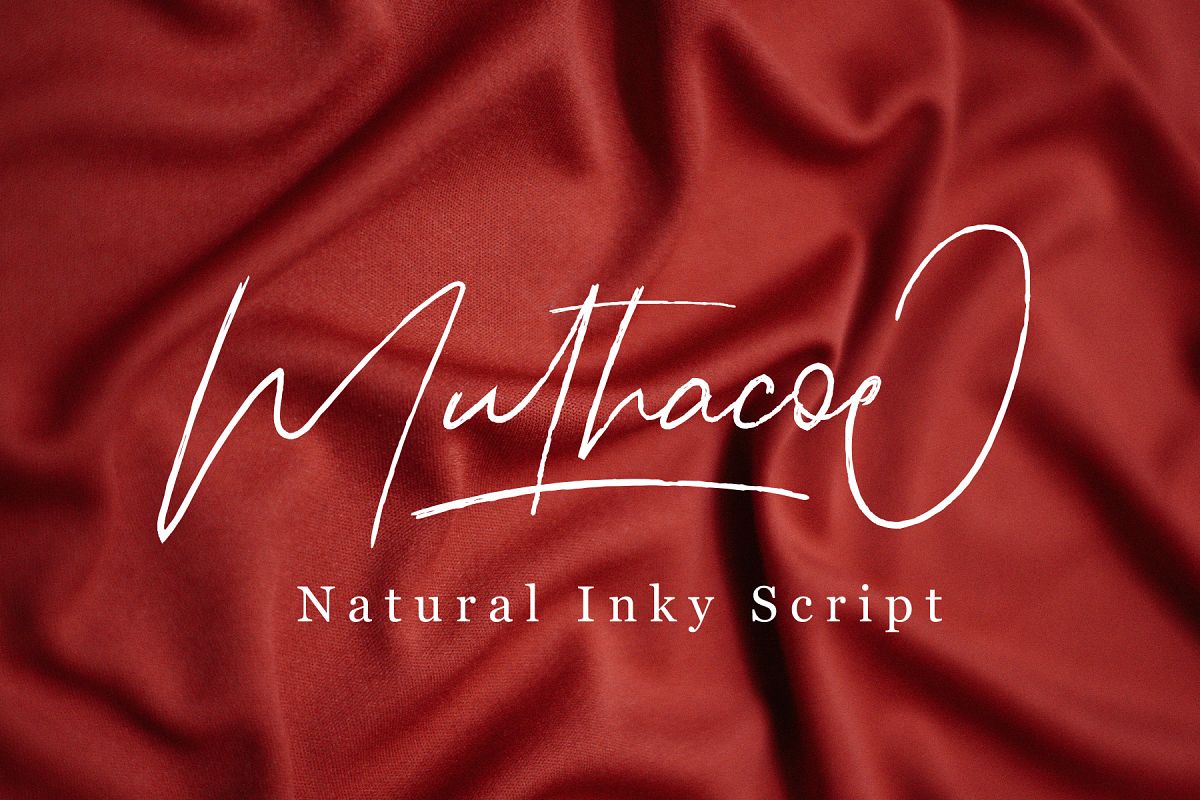
Muthacoe | Natural Inky Script
Muthacoe
• Muthacoe Uppercase
• Muthacoe Lowercase
• Muthacoe Numeral & Punctuation
• Muthacoe Multilingual Lowercase
• Muthacoe Stylistic Alternates
• Muthacoe Titling
• Muthacoe Contextual Alternates
• Muthacoe Swash
• Muthacoe Standart Ligature